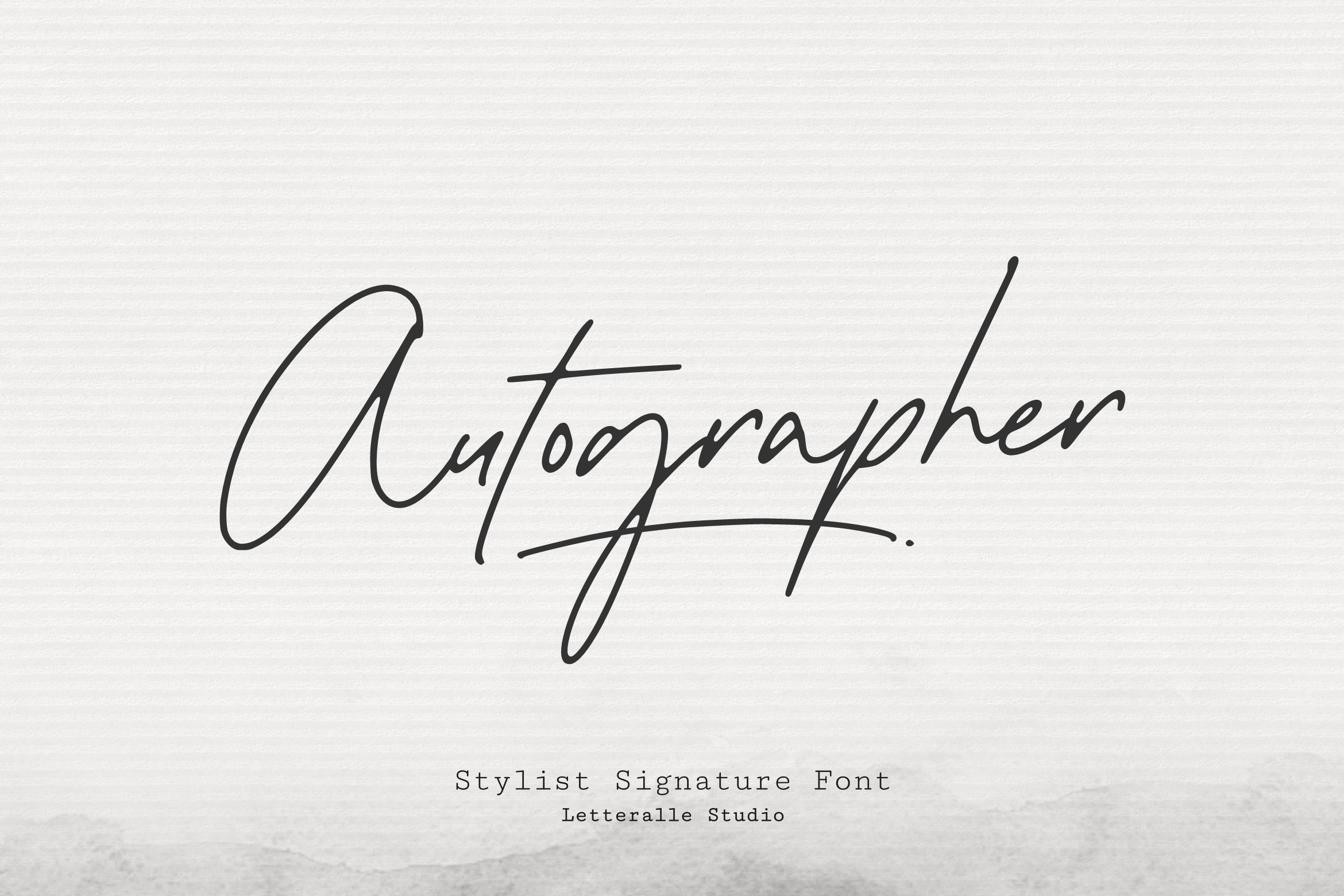
Autographer Handwritten Font
I'd like to introduce you Autographer!
a wonderful signature font. Autographer is an eye-catching, sexy, fashionable, and chill handwritten script font. Autographer is very valuable to additional you handwritten and signature font.
Autographer comes with multilingual support, extra ligature, and swashes. To access swashes you only need to type _1 until _5.
Autographer is perfect for many design needs such as merch, T-shirts, titles, book covers, social media posts, websites, events, and many more.